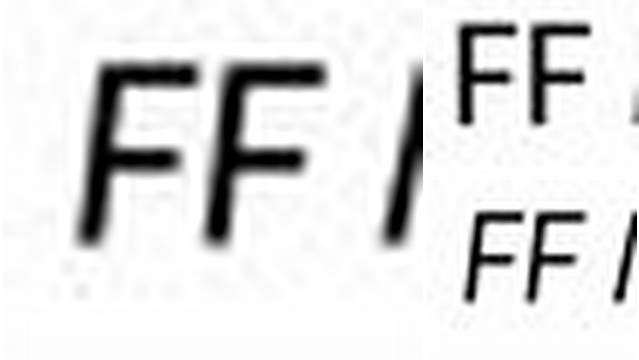
FF Max Pro Condensed Font: Your Design Best Friend
Alright, let's talk about why the FF Max Pro Condensed Book Font is so awesome. First off, it's a condensed font, which means it's perfect for situations where you need to squeeze a lot of text into a small space. Think book covers, headlines, or even small text within your design layouts. This font has a clean, modern aesthetic that works well in both digital and print media. Whether you're designing a website, creating marketing materials, or crafting a personal project, this font offers a professional and polished look. Its legibility is excellent, even at smaller sizes, ensuring your message is clear and easy to read. The versatility of this font is another major draw; it fits a wide range of design styles, from minimalist to more elaborate designs. This font also comes with several variations; you can choose from different weights and styles to suit your specific needs. You can make text bold, italic, or a combination of both. This will help you emphasize text, make it stand out, and make it easier to read, especially in the longer paragraphs. The combination of this font and its versatility with the wide range of styles will allow you to create beautiful designs, such as book covers or website designs, with its elegant appearance. Its availability for free download makes it an accessible choice for both professional designers and hobbyists alike, offering a high-quality font without breaking the bank. The FF Max Pro Condensed Book Font allows you to experiment with different design elements. It's an excellent choice for any project that requires a touch of sophistication and practicality.
Diving Deeper into the FF Max Pro Condensed Font's Features
Beyond its basic features, the FF Max Pro Condensed Book Font boasts some pretty impressive technical aspects that make it a top choice. For starters, the font has excellent kerning and spacing, which are essential for readability. Kerning refers to the space between individual letters, and proper kerning prevents letters from appearing too close together or too far apart. This contributes to the overall aesthetic and ensures a comfortable reading experience. Furthermore, the font supports a wide range of characters, including various special characters, glyphs, and accents. This broad character support is particularly beneficial if you're working on multilingual projects or need to incorporate specialized symbols into your designs. The consistent design throughout all characters allows for a harmonious appearance in different languages and also across various design elements. The various weights available within the FF Max Pro Condensed Book Font family add another layer of flexibility to its use. You can choose from a range of weights, from light to bold, to add emphasis or create visual hierarchy in your designs. This flexibility enables you to use the font in various applications, from titles and headlines to body text and captions. The strong design of the font is its adaptability to different design styles and its overall aesthetic qualities that are both functional and aesthetically pleasing.
FF Max Pro Condensed Font: Where Can You Use It?
The FF Max Pro Condensed Book Font is like a Swiss Army knife for designers; it's incredibly versatile. This font shines in several areas where its condensed nature proves invaluable. It's perfect for book covers, where space is at a premium, allowing you to fit more information without sacrificing readability. Magazine layouts are another great place to use it. Its ability to condense text allows you to arrange columns and fit more content on a page without making it look overcrowded. Websites and digital designs also benefit from this font. The condensed style helps create clean, modern-looking websites and blogs. You can use this font for headings, subheadings, and even short blocks of text to keep a consistent and visually appealing design. In marketing materials, this font is extremely useful for advertisements, brochures, and flyers. You can fit more text and create a visually engaging layout. Its readability helps ensure your message is communicated clearly. You can use the FF Max Pro Condensed Book Font for personal projects, such as creating invitations, posters, or even custom graphics. The font's design and readability make it a great choice for any creative endeavor. It is a fantastic choice for many different projects because of its modern style and ability to fit a lot of text in a small space.